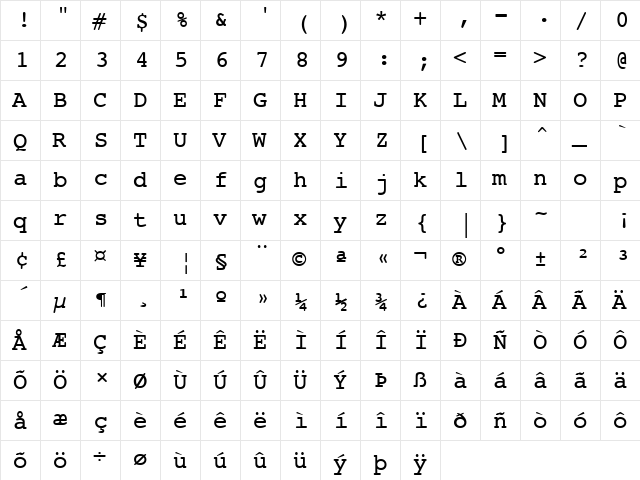
ScreenPlay Regular
Design Context for ScreenPlay Typeface
ScreenPlay offers clean, dependable letterforms without strong stylistic allegiance, making it a practical choice for designers who need flexibility.